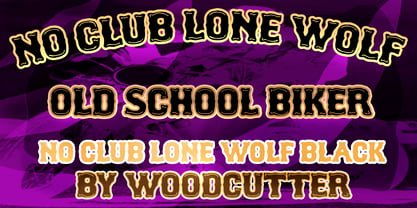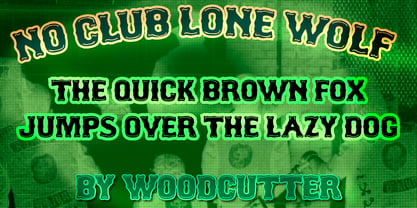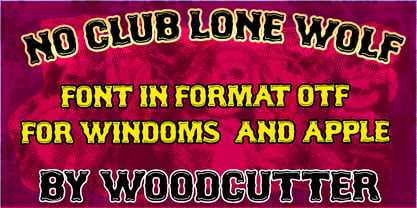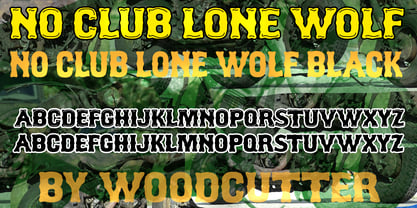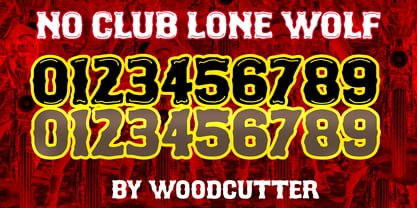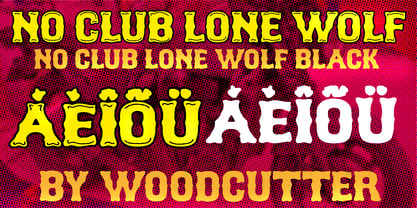
No Club Lone Wolf
by Woodcutter
The No Club Lone Wolf Font Family was designed by Jordi Manero and published by Woodcutter. No Club Lone Wolf contains 2 styles and family package options. More about this family
No Club Lone Wolf is a typeface family that embodies the independent, rebellious, and solitary attitude of biker culture, with a subtle western edge. Designed in uppercase with full accent support, this font conveys strength, identity, and a constant sense of movement and freedom.
Its letterforms are bold, aggressive, and slightly worn, featuring strong strokes that evoke metal, leather, and open roads. The characters include carefully crafted decorative details that enhance personality without sacrificing impact, recalling biker club emblems, custom insignias, and hand-painted lettering on fuel tanks or leather jackets. This blend of ruggedness and style creates a powerful and authentic visual presence.
The main version, No Club Lone Wolf, features decorated black letterforms, where the details reinforce its identity and make it ideal for expressive, narrative-driven compositions. Each character feels like it carries a story of the road, independence, and defiance.
In contrast, No Club Lone Wolf Black offers a more direct and compact interpretation, removing decorative elements to reveal solid, bold shapes. This version maximizes clarity and impact while preserving the raw essence of the family.
Perfect for branding, music, posters, apparel, or any project that aims to convey attitude, freedom, and an untamed spirit.